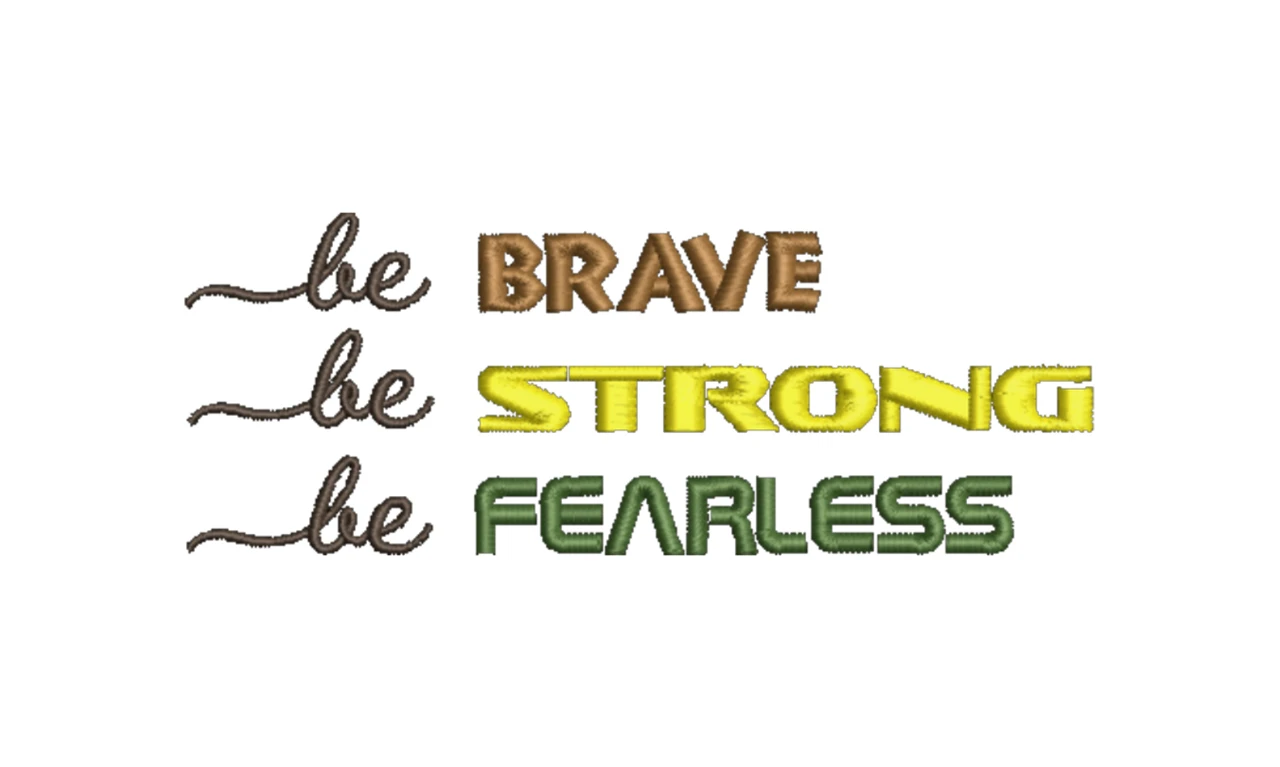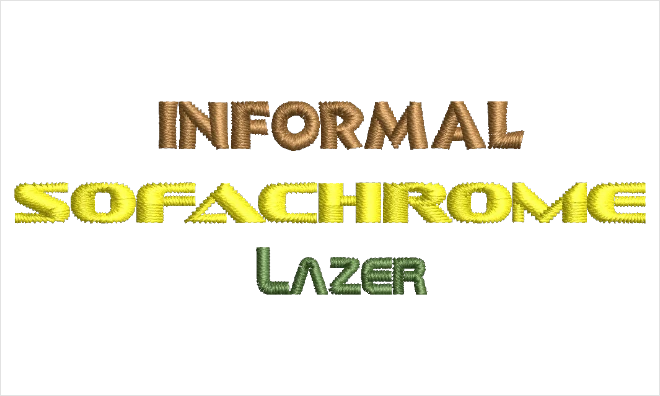
Font Pack #15 - Small Block
Three looks using satin stitch come together in this collection for use with small height style of lettering. Bold, slanter, or just plain modern block fonts. You’ll find so many uses for this collection in your small projects.
Informal
A bold font in all capital letters that you can use at a small size down to 6mm. Suggest to add letter spacing when using at the smaller size range.
Min: 0.2in, 6mm | Max: 0.4in, 10mm
Lazer
A great font to use for chidren and school projects. Give that look of outer space.
Min: 0.2in, 6mm | Max: 0.7in, 18mm
Sofachrome
This font gives you a modern headliner type of look. It can be use at small hight down to 4mm. Sugget you add lettering spacing when using at small sizes.
Min: 0.16in, 4mm | Max: 0.2in, 6mm